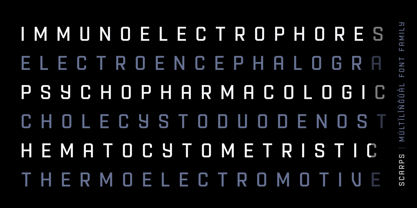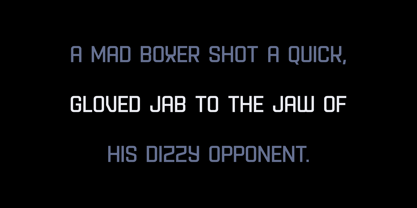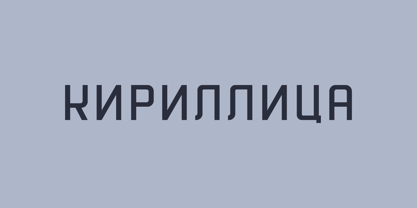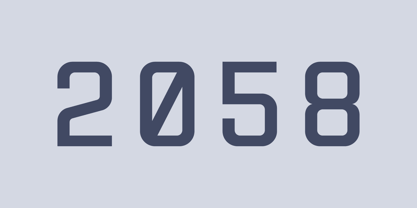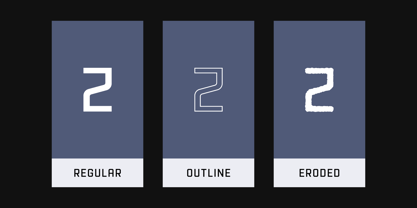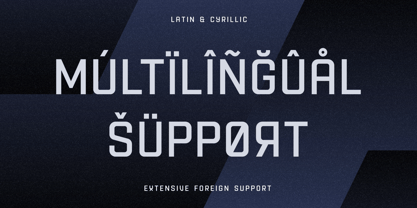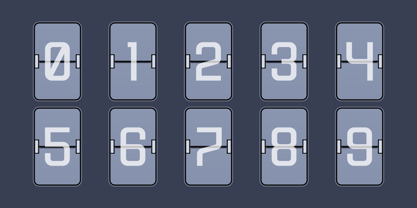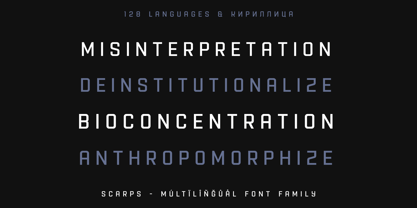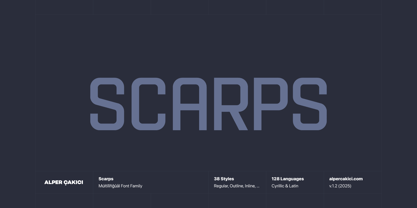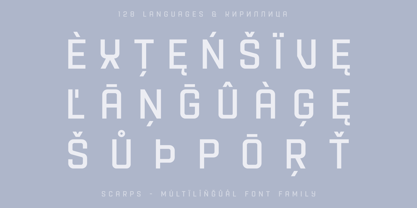
Scarps
by AlperCakici
The Scarps Font Family was designed by Alper Çakıcı and published by AlperCakici. Scarps contains 38 styles and family package options. More about this family
Scarps is a versatile geometric all-caps font family designed for modern branding, bold headlines, and expressive display typography. Its clean geometry meets friendly rounded contours, delivering a smooth balance between precision and warmth. With 38 styles—ranging from Brush, Pencil, Inline, Noise, Rough, Rimmed, Eroded, Angular, Rounded, and more—Scarps gives designers an extensive toolbox for building cohesive yet varied visual systems. Each style offers its own texture and personality while maintaining a consistent structure across the entire family. Scarps supports 128 languages, making it a reliable choice for international brands and global communication. From packaging to posters, from editorial layouts to digital interfaces, Scarps adapts with ease while maintaining a distinct, memorable presence. Whether you need clean geometry, handcrafted texture, eroded grunge, or expressive brush strokes, Scarps delivers a complete typographic universe.
Designers: Alper Çakıcı
Foundry: AlperCakici